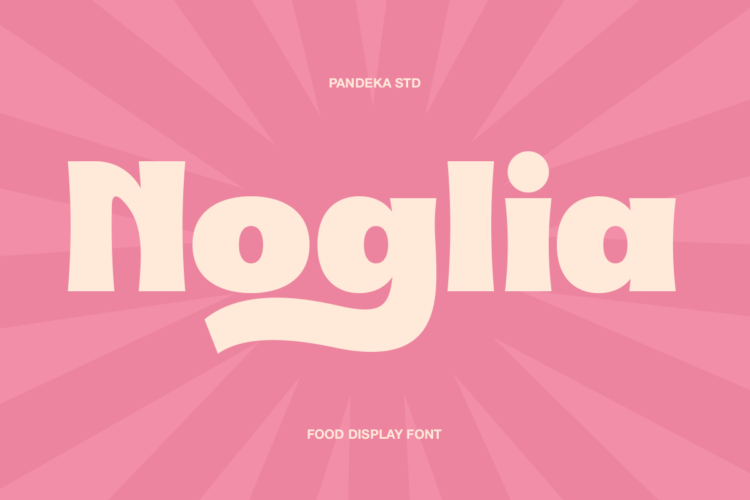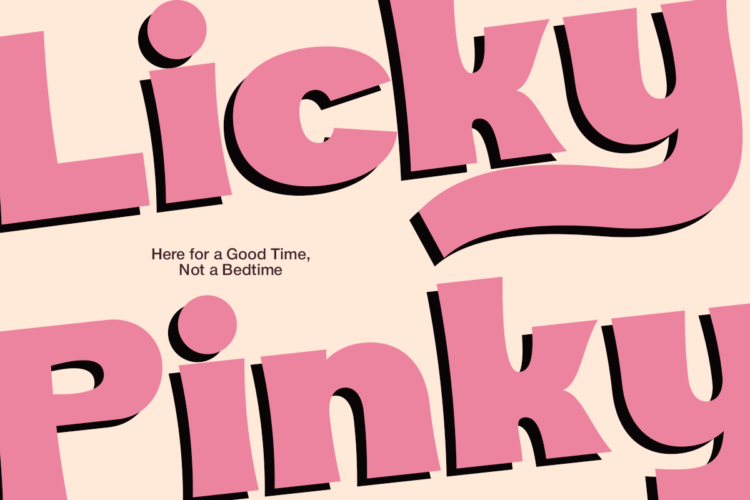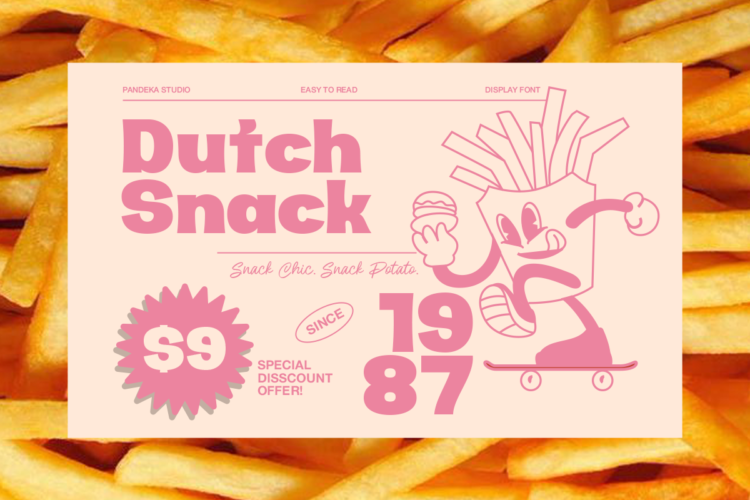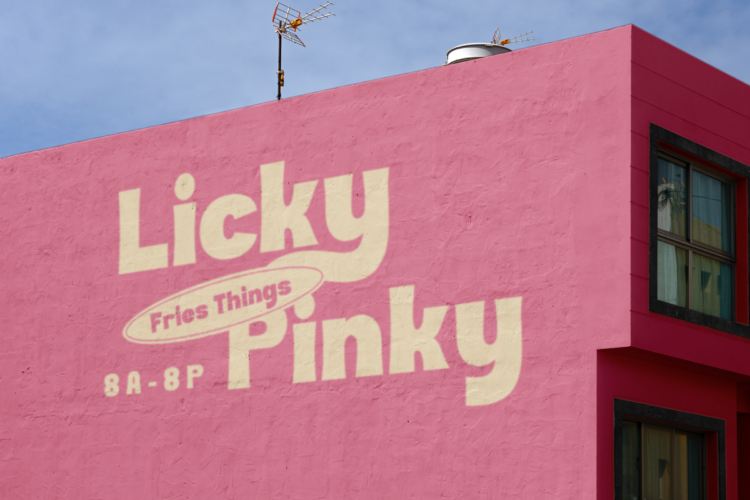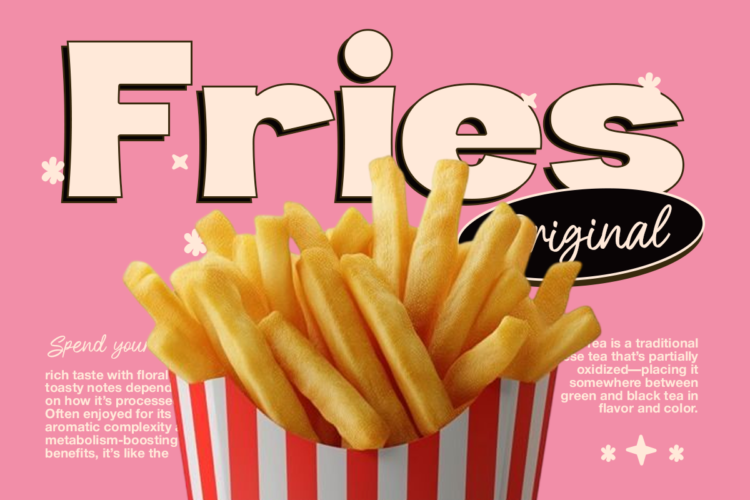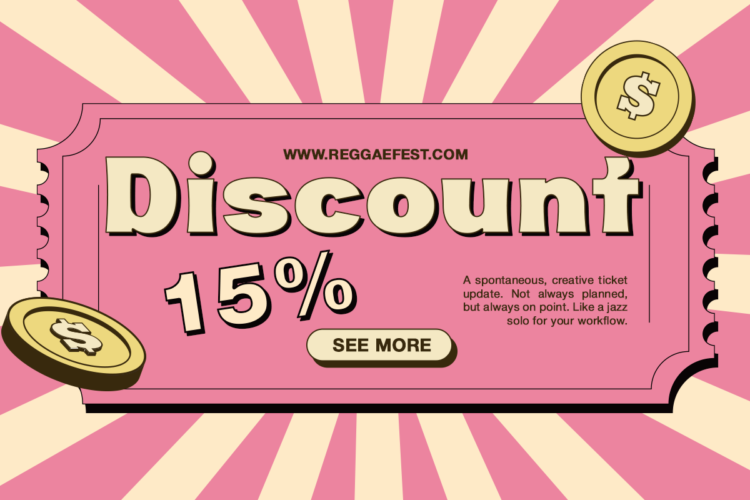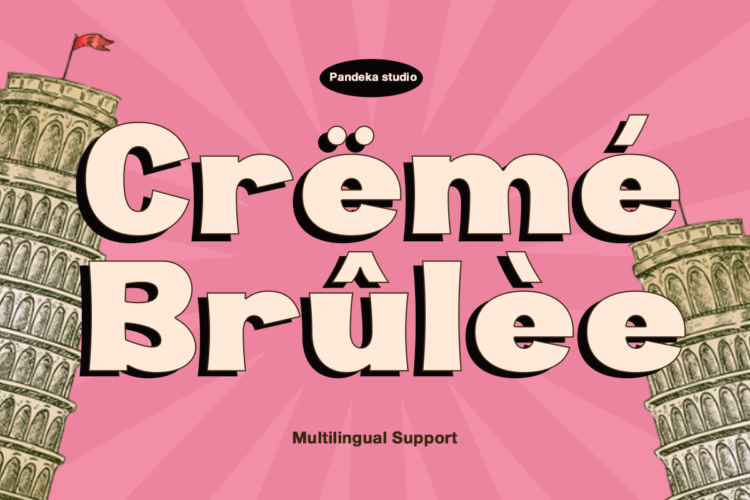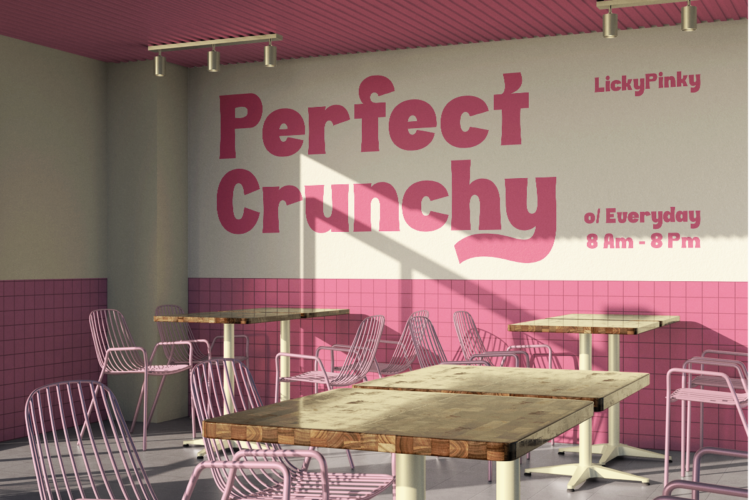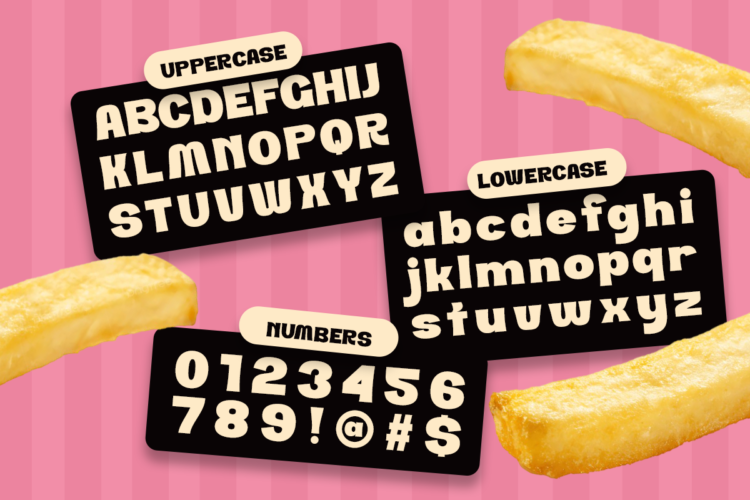
Noglia is a playful food display font featuring bold rounded shapes, soft curves, and a delicious retro-inspired personality. Designed to create a warm and appetizing impression, it works perfectly for restaurant branding, café identities, bakery packaging, snack promotions, menu designs, food posters, and social media graphics. Its friendly appearance helps headlines stand out while maintaining excellent readability and visual charm.
Designed in 1 Regular style, Noglia also includes 3 stylistic alternates that provide extra flexibility for creating unique and customized typography. Whether used for logos, packaging, advertising materials, merchandise, or promotional campaigns, Noglia brings a fun, cheerful, and memorable character that enhances food-related designs with a strong and inviting visual presence.